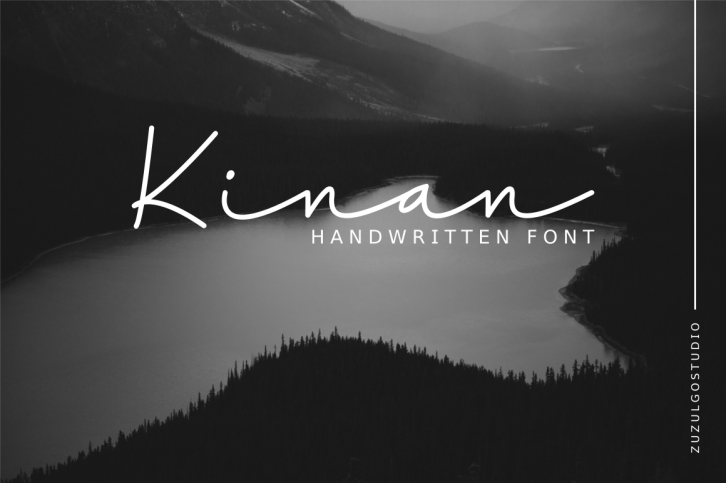
Kinan is a great font that was designed by zuzulgo. Imagine the amount of combinations you can create using this font! The archive is 14.4 MB and it was released on May 24, 2018. Kinan looks beautiful on wedding invitations, greeting cards, logos, posters, labels, t-shirt designs, logos, business cards and is perfect for use in ink or watercolor works, fashion, magazines, packaging and food menus, children's books and more!